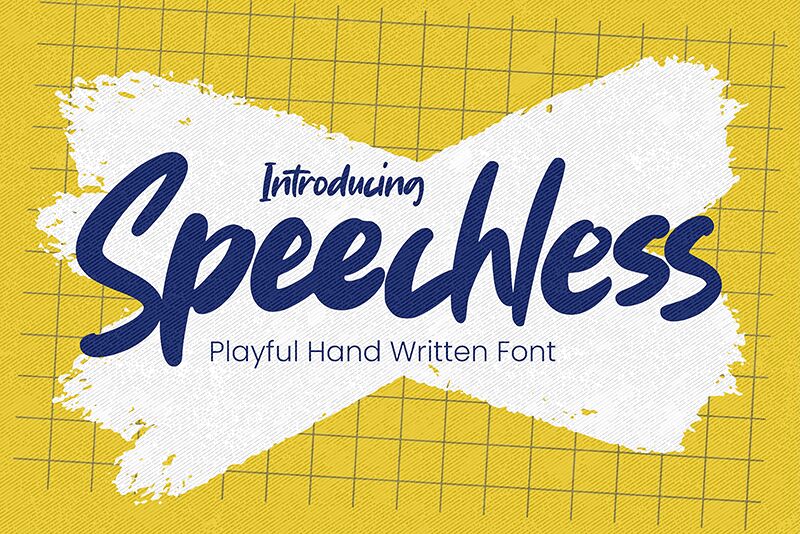
Speechless
Delve into the world of expressive typography with Speechless, a semi-bold handwritten font crafted by the talented Gassstype. Speechless embodies a modern style infused with dramatic movement, capturing the essence of quick, casual penmanship. Its textured strokes and playful nature make it an ideal choice for projects that demand an authentic and fun aesthetic.
Speechless shines across diverse creative landscapes—from adding personality to labels and posters to enhancing branding and packaging with its distinctive charm. It's not just about looks; this font invites you to tell stories on greeting cards, websites, photography overlays, and beyond. With its OpenType features like ligatures, Speechless transforms text into a seamless stream of handwriting that feels incredibly natural.
Whether you're designing for business or pleasure, Speechless is your go-to font for making a statement without saying a word. Embrace its uniqueness to elevate your creative endeavors effortlessly.